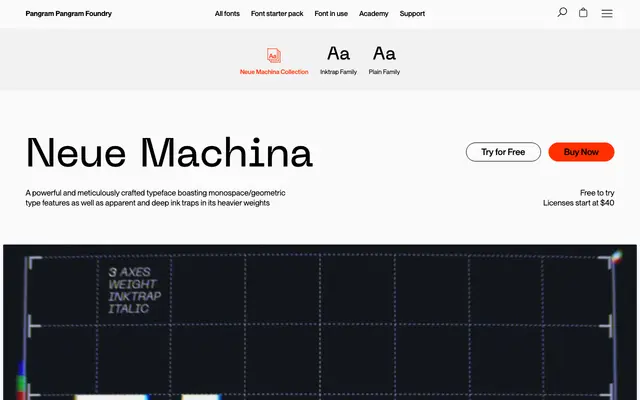
PP Neue Machina
A geometric display sans with monospace features and deep ink traps, in Inktrap and Plain cuts for technology and futurist work.
PP Neue Machina is a geometric display sans with monospace features and pronounced ink traps in its heavier weights, drawn from the aesthetics of robotics and machinery. It ships in two cuts, an aggressive Inktrap and a calmer Plain, each with italics and a variable font for 36 styles in total. Lighter weights blend in for body and interface use, while the heavy Inktrap cut carries the load for tech-flavoured headlines and product identity.
Geometric display sans with monospace features and pronounced ink traps in heavier weights; ships in two cuts, Inktrap and Plain, each with italics and a variable font, for 36 styles total.